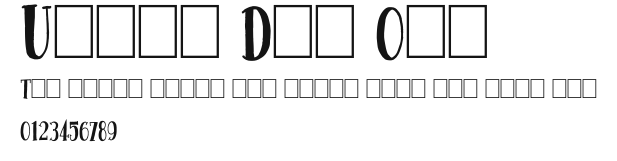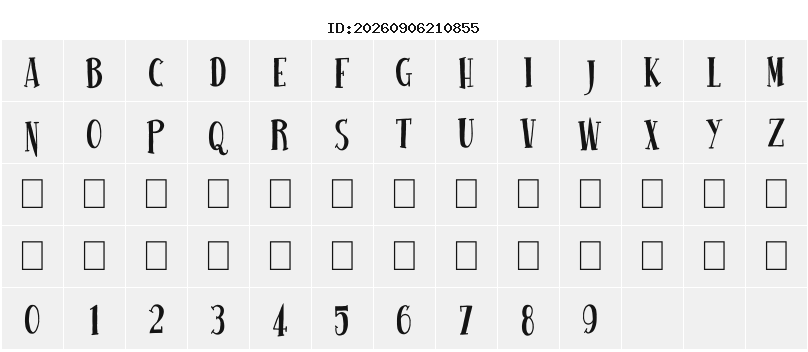
Usual Day One Preview
• Font Name: Usual Day One
• Full Font Name: Usual Day One
• Version: Version 1.00 November 24, 2012, initial release
• Designer: imagex
About Usual Day One.ttf
Usual Day One.ttf is a modern, elegant sans-serif font designed for ultimate readability and visual harmony. Perfect for branding, headlines, web design, and print materials.